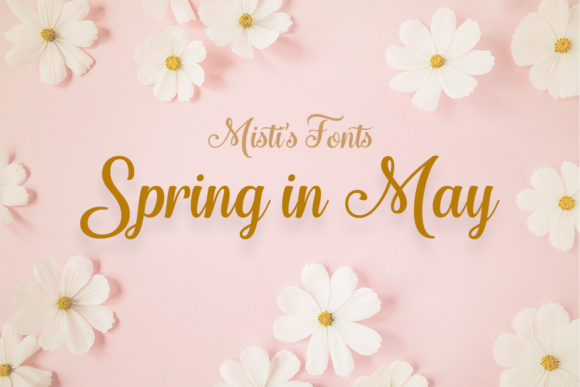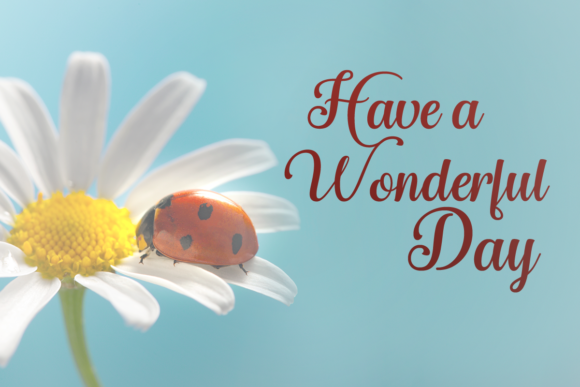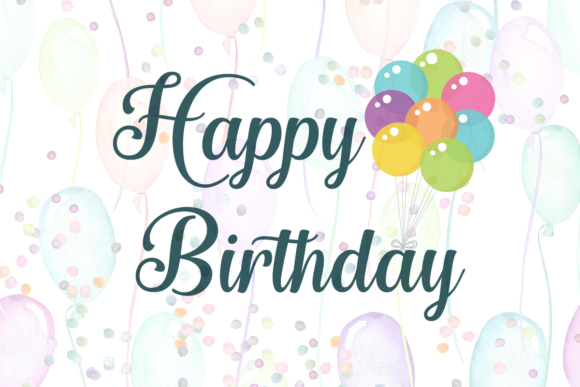
Spring in May Font
About Spring in May Font
Spring in May is a stunning calligraphy typeface renowned for its elegant design, making it an ideal choice for various applications. Whether used in wedding invitations, lovely greeting cards, or any project requiring a touch of sophistication, Spring in May adds a fancy and refined aesthetic.
The stunning calligraphy of Spring in May brings an air of elegance to wedding invitations. The font’s graceful and fluid strokes create a timeless and romantic feel, setting the tone for a special and memorable event. Its sophisticated design complements the atmosphere of weddings, making it a perfect choice for couples seeking a touch of luxury in their invitations.
For greeting cards, Spring in May’s elegant typeface adds a special charm. Whether conveying heartfelt messages, expressing love, or sending warm wishes, the font elevates the overall design, making the greeting cards stand out with a touch of sophistication.
The fancy and refined qualities of Spring in May make it suitable for a range of projects where a stylish and elegant touch is desired. Its versatility allows it to enhance the visual appeal of various designs, bringing a sense of luxury and sophistication.
In summary, Spring in May is more than just a font; it’s a stunning calligraphy typeface that enhances the beauty of projects requiring an elegant and fancy touch. Whether applied to wedding invitations, greeting cards, or other creative endeavors, Spring in May adds a timeless and sophisticated aesthetic, making it a valuable tool for creating visually captivating designs.